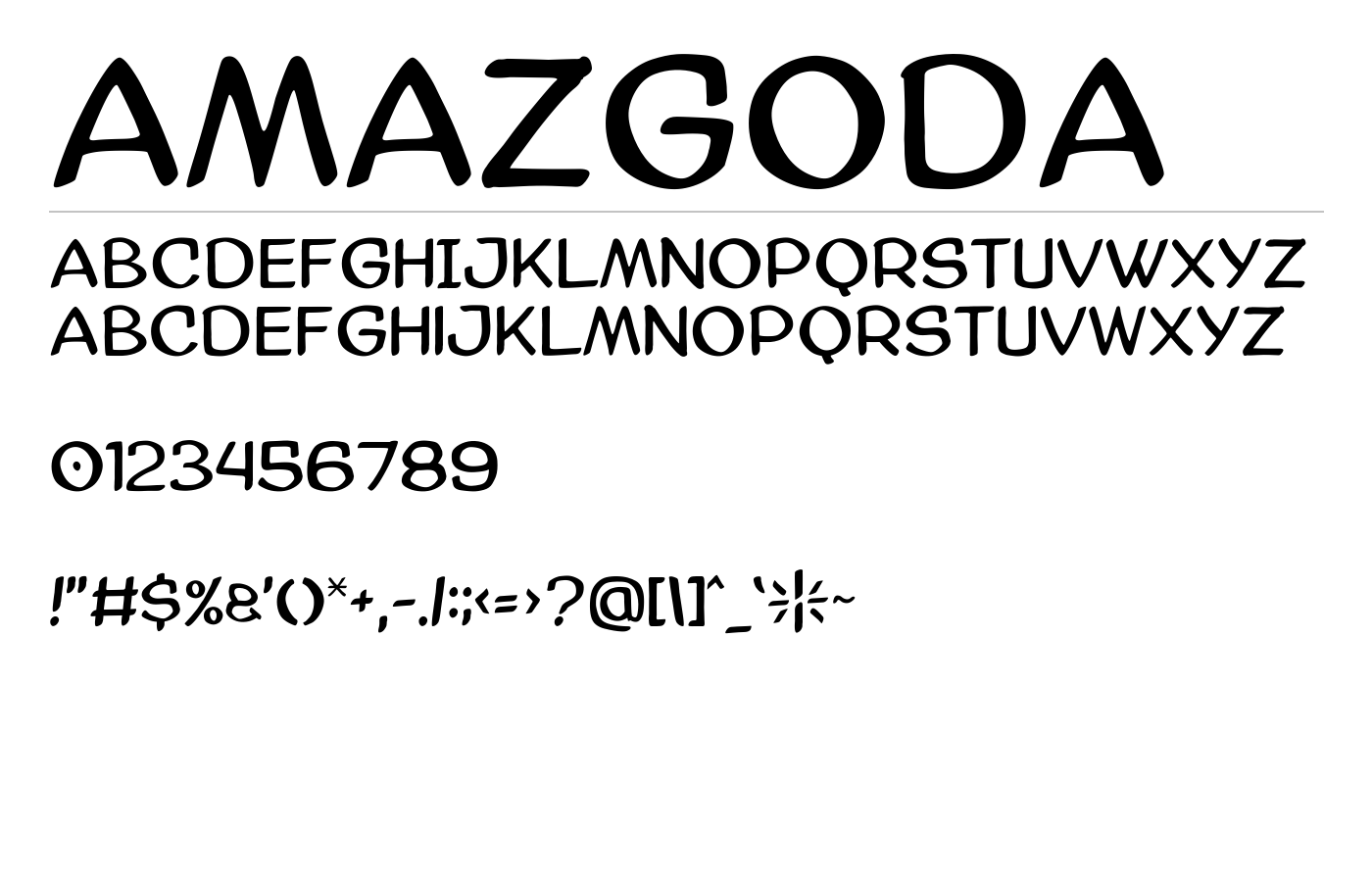
AmazGoDa is a playful and casual sans serif font characterized by its irregular, hand-drawn appearance and rounded letterforms. With a medium weight, lively stroke variations, and quirky details like the unique tail of the 'Q,' it carries a friendly and informal personality perfect for creative projects, children's designs, or anything that benefits from an approachable, fun vibe. Its clarity and charm make it suitable for headlines, logos, and packaging where a personal, whimsical touch is desired.
AmazGoDa Font
About AmazGoDa Font
| Font family | AmazGoDa Font |
| Designer | Amazingmax |